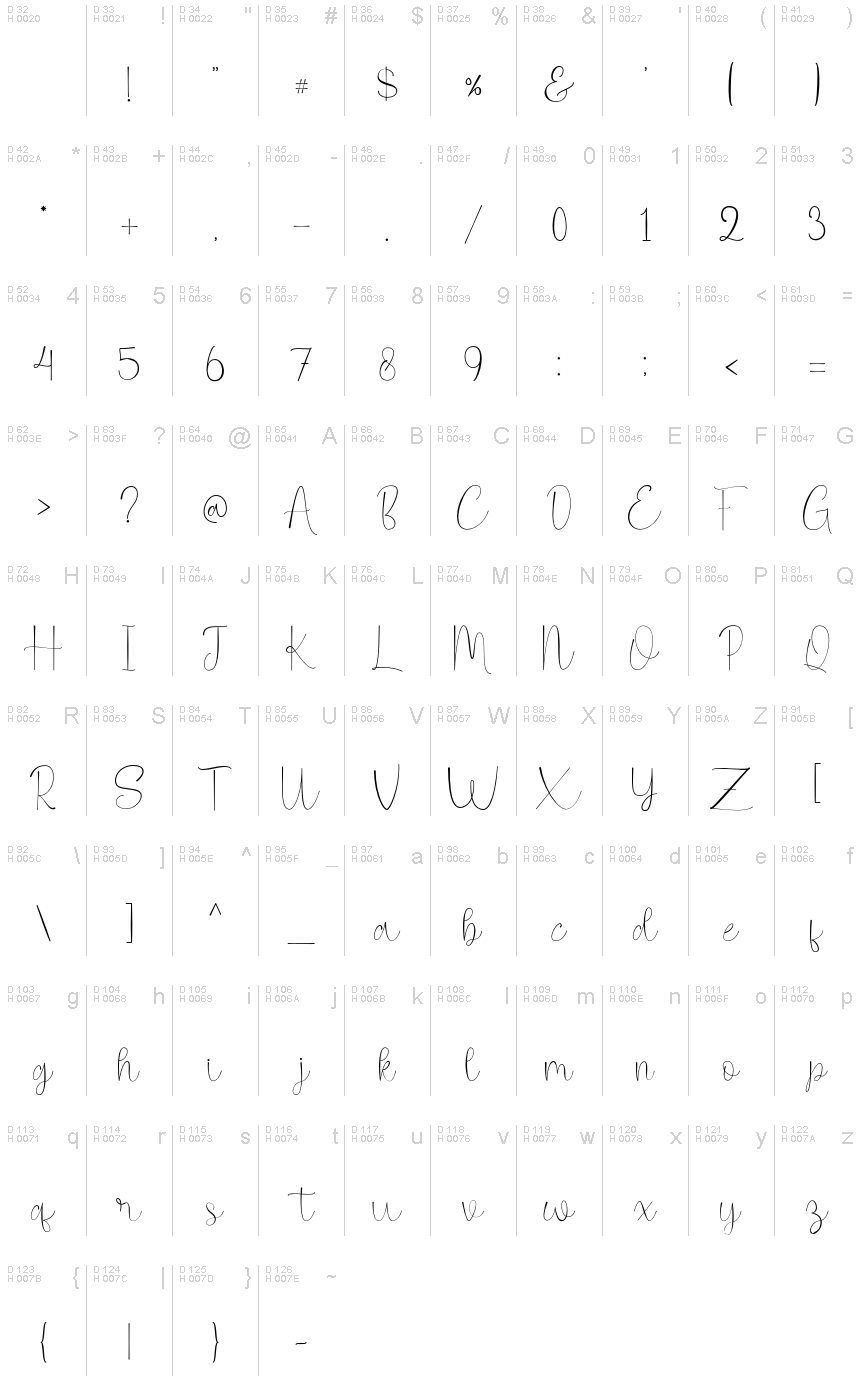
Signline
Signline exudes an effortless charm with its whimsical, handwritten style that captivates the eye. Crafted by JD Studio, this font showcases a light, airy quality that invites creativity while maintaining readability. Its unique character forms elegantly flow together, creating a sense of playfulness and warmth.
The distinctiveness of Signline shines through in the fluidity of its strokes, making it ideal for projects that aim to convey a personal touch. Perfect for invitations, branding materials, or any design requiring an artistic flair, this font effortlessly enhances the emotional connection between the message and the audience. Whether used in digital or print mediums, Signline brings a delightful aesthetic that stands out without overwhelming.